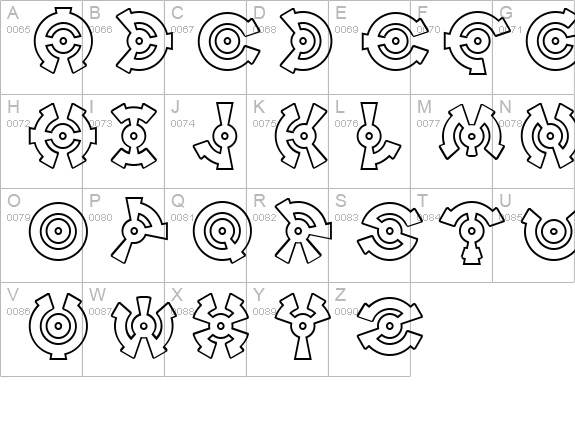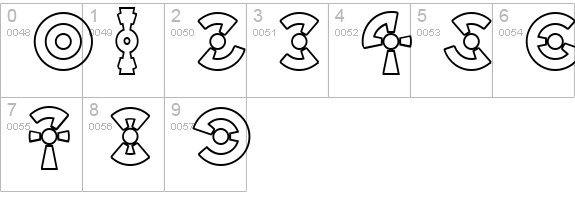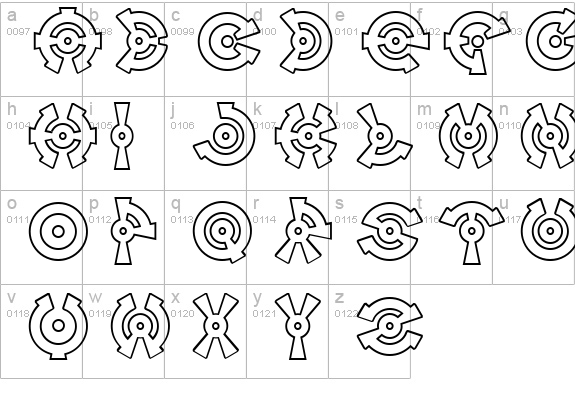
Anillo Outline Font Details
Anillo Outline font is a modern and stylish typeface that brings a touch of elegance to any design project. Its clean lines and sleek appearance make it perfect for a wide range of applications, from branding to editorial design. The outline style adds a unique and contemporary look to your text, making it stand out from the crowd. The best part? Anillo Outline font is available for free download at FontsMarket.com. This means you can easily access this beautiful typeface and use it in your projects without any cost. Whether you're working on a personal project or a professional design, Anillo Outline font is a versatile and sophisticated choice that will elevate your work to the next level. Download it today and add a touch of class to your designs.